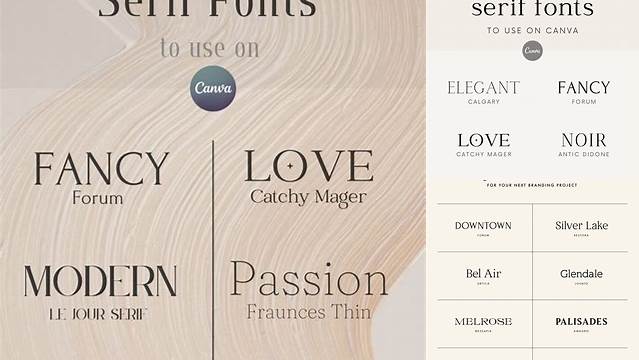
30 Free Serif Fonts You'll Love (Download Now!)
Hey guys! Looking to add a touch of elegance and readability to your designs? You've come to the right place! Serif fonts are the classic choice for a reason – their little decorative strokes (those 'serifs'!) give them a formal, timeless feel that's perfect for everything from books and magazines to websites and branding. But finding high-quality serif free font can sometimes feel like searching for a needle in a haystack. That's why we've curated this list of 30 awesome free serif fonts that you can download and use right now!
1. What are Serif Fonts?
Let's start with the basics. What exactly are serif fonts? Well, they're characterized by those small lines or strokes attached to the ends of letters. Think Times New Roman or Georgia – those are classic examples of serif typefaces. The serifs help guide the reader's eye across the page, making them super readable, especially in long blocks of text. This is why you'll often see serif fonts used in books, newspapers, and magazines. But they're also great for adding a touch of sophistication to logos, websites, and other design projects. When you're working on a project that needs a sense of tradition, trustworthiness, or just plain elegance, a well-chosen serif font can make all the difference. Plus, with so many free options available, you don't have to break the bank to get that polished look. So, let's dive into some amazing free serif fonts you can use today!
2. Classic Serif Fonts for Professional Designs
When it comes to professional designs, you can't go wrong with classic serif fonts. These fonts are timeless, versatile, and convey a sense of authority and reliability. Think of fonts like Times New Roman or Garamond – they've been around for ages and are still widely used in books, newspapers, and corporate documents. But there are plenty of other fantastic classic serif fonts that are available for free. For example, you might want to check out Lora, a well-balanced serif with roots in calligraphy, or Playfair Display, a high-contrast serif that's perfect for headlines and titles. These fonts are ideal for projects that require a touch of formality and professionalism. Whether you're designing a business card, a resume, or a website for a law firm, a classic serif font will help you communicate credibility and competence. And the best part? Many of these fonts are available under open-source licenses, meaning you can use them for both personal and commercial projects without paying a dime. So, don't underestimate the power of a classic – it can elevate your designs and leave a lasting impression.
3. Modern Serif Fonts for a Contemporary Look
If you're aiming for a more contemporary look, modern serif fonts are the way to go. These fonts retain the readability of traditional serifs but incorporate a more streamlined and stylish aesthetic. Think clean lines, sharp angles, and a touch of personality. Modern serifs are perfect for projects that need to feel both sophisticated and fresh. For instance, a font like Libre Baskerville offers a contemporary take on the classic Baskerville, making it a great choice for websites or print materials. Another excellent option is Montserrat, which includes a serif variation that's both elegant and highly readable. Modern serif fonts are incredibly versatile – they work well for everything from logos and branding to editorial design and web typography. They strike a balance between tradition and innovation, making them ideal for businesses that want to project a forward-thinking image. And just like classic serifs, there are tons of free modern serif fonts out there. So, you can achieve a polished, contemporary design without spending a fortune. Experiment with different modern serifs to find the perfect fit for your project and watch your designs come to life!
4. Elegant Serif Fonts for Invites and Branding
For projects that demand elegance and sophistication, you'll want to explore serif fonts specifically designed for that purpose. These fonts often feature delicate serifs, graceful curves, and a refined overall appearance. They're perfect for wedding invitations, branding materials for luxury goods, and any design that needs a touch of class. Think about how a beautifully designed invitation can set the tone for an entire event – the right serif font can make all the difference. Some fantastic free elegant serifs include Mrs Eaves, a font with a unique and slightly quirky charm, and Didot, a high-contrast serif known for its use in fashion magazines. These fonts exude a sense of luxury and refinement, making them ideal for high-end brands and special occasions. When choosing an elegant serif, pay attention to the details – the shape of the serifs, the spacing between letters, and the overall balance of the font. A well-chosen elegant serif can elevate your design and create a lasting impression of quality and sophistication. Plus, the availability of free options means you can achieve that luxurious look without breaking the bank. So go ahead, indulge in a little elegance!
5. Bold Serif Fonts for Headlines
Need a font that commands attention? Bold serif fonts are your best friend for headlines and titles. These fonts are designed to be eye-catching and impactful, making them perfect for grabbing the reader's attention. A bold serif font can make a statement and add a touch of authority to your design. Think about the headlines in newspapers or magazines – they often use bold serifs to draw the reader in. Some great free bold serif options include Oswald, a sans-serif font that has a bold serif counterpart, and Roboto Slab, a modern and versatile slab serif that works well in both print and digital contexts. Bold serifs are especially useful when you need to create visual hierarchy in your design. They help to separate headings from body text and guide the reader through the information. When using a bold serif, make sure to consider the overall balance of your design. You don't want the headline to overwhelm the rest of the elements. A well-chosen bold serif, however, can be the perfect way to make your message stand out. And with so many free options available, you can experiment and find the perfect bold serif for your project.
6. Lightweight Serif Fonts for Body Text
While bold serif fonts are fantastic for headlines, lightweight serifs are the go-to choice for body text. These fonts are designed to be easy on the eyes, ensuring a comfortable reading experience, especially in longer blocks of text. The key is readability – you want a font that allows the reader to focus on the content, not the font itself. Lightweight serifs often have a delicate and understated appearance, which makes them ideal for conveying a sense of sophistication and clarity. Think about the fonts used in novels or academic papers – they're usually lightweight serifs that prioritize legibility. Some excellent free lightweight serif options include Raleway, a versatile font that comes in a range of weights, and Merriweather, a font specifically designed for on-screen reading. When choosing a lightweight serif for your body text, consider the overall tone of your design. A more classic serif can lend a sense of tradition, while a modern serif can add a contemporary touch. The right lightweight serif can make your text flow beautifully and enhance the reading experience. And with plenty of free options available, you can find the perfect font without sacrificing your budget. So, prioritize readability and choose a lightweight serif that lets your message shine.
7. Unique Serif Fonts to Stand Out
Tired of the same old serif fonts? Want something that truly stands out? Then you need to explore unique serif fonts! These fonts break the mold with unconventional shapes, unexpected details, and a whole lot of personality. They're perfect for projects that need to make a statement and leave a lasting impression. Think about how a unique font can instantly elevate a logo or a website – it's a way to express your brand's individuality and creativity. Some awesome free unique serif fonts include Arvo, a geometric slab serif with a distinctive character, and Playfair Display, a high-contrast serif with a dramatic flair. These fonts aren't afraid to be different, and they can add a touch of whimsy or sophistication to your design. When using a unique serif, be mindful of readability. You want a font that's eye-catching but still easy to read, especially in longer blocks of text. A well-chosen unique serif can be the perfect way to add some personality to your project. And with the vast array of free options available, you can find a font that truly reflects your style and vision. So, don't be afraid to experiment and embrace the unexpected!
8. Free Serif Fonts for Logos
A logo is the cornerstone of a brand's identity, and the font you choose plays a crucial role in conveying the brand's personality and values. Serif fonts can be an excellent choice for logos, especially if you want to project a sense of tradition, elegance, or authority. But with so many fonts out there, how do you choose the right one for your logo? First, consider your brand's message. Do you want to convey a sense of sophistication, reliability, or innovation? A classic serif like Garamond might be perfect for a high-end brand, while a modern serif like Playfair Display could work well for a contemporary business. Free serif fonts offer a fantastic opportunity to create a professional-looking logo without breaking the bank. Look for fonts that are legible at various sizes and have a strong visual presence. Some great free options for logos include Lora, a well-balanced serif with a classic feel, and Oswald, a bold serif that commands attention. Remember, your logo is often the first impression a potential customer has of your brand, so choosing the right font is essential. Experiment with different free serif fonts and see which ones best capture the essence of your brand.
9. Best Free Serif Fonts for Websites
When it comes to website typography, readability is key. You want your visitors to be able to easily read your content, whether they're on a desktop computer or a mobile device. Serif fonts can be an excellent choice for websites, but it's important to choose fonts that are optimized for on-screen reading. This means looking for fonts with clear, well-defined characters and ample spacing. Free serif fonts offer a wealth of options for creating beautiful and readable websites. Some top choices for web typography include Roboto Slab, a modern and versatile slab serif, and Merriweather, a font specifically designed for on-screen reading. These fonts are designed to look good at various sizes and resolutions, ensuring a consistent user experience across different devices. When selecting a serif font for your website, consider the overall design and branding. Do you want a font that feels classic and traditional, or something more modern and contemporary? The right font can enhance your website's aesthetic and improve its readability. So, explore the world of free serif fonts and find the perfect typeface to bring your website to life.
10. Top Free Serif Fonts for Print
While many fonts look great on screens, not all of them translate well to print. When designing for print, you need to choose serif fonts that are crisp, clear, and legible even at small sizes. This is where classic serif fonts often shine, as they were originally designed for the printed page. Free serif fonts offer a treasure trove of options for print design, from books and magazines to brochures and flyers. Some standout choices for print include Garamond, a timeless and elegant serif, and Times New Roman, a workhorse font that's known for its readability. These fonts have been used in countless printed materials over the years, and they continue to be excellent choices for a reason. When selecting a serif font for print, pay attention to the details. Look for fonts with well-defined serifs and a balanced letterform. The right font can make your printed materials look professional and polished. So, dive into the world of free serif fonts and discover the perfect typeface for your next print project.
11. Serif vs. Sans-Serif: Which is Right for You?
The age-old debate: serif fonts vs. sans-serif fonts. Which one is the right choice for your project? The answer, of course, depends on the specific context and your design goals. Serif fonts, with their small decorative strokes, tend to convey a sense of tradition, elegance, and authority. They're often used in books, newspapers, and formal documents. Sans-serif fonts, on the other hand, have a cleaner, more modern appearance. They're frequently used in websites, logos, and contemporary designs. But the lines between the two are blurring, and there's no hard-and-fast rule about when to use each type of font. For instance, a modern serif font can work beautifully in a website headline, while a clean sans-serif can be a great choice for body text in a printed brochure. Ultimately, the best way to decide between serif and sans-serif is to experiment and see what looks best for your project. Consider the overall tone and message you want to convey, and choose a font that aligns with your vision. And remember, there are tons of free serif and sans-serif fonts available, so you have plenty of options to choose from!
12. How to Pair Serif Fonts with Other Fonts
Choosing a serif font is just the first step. To create a truly compelling design, you need to think about how to pair your serif font with other fonts. Font pairing is an art form, but there are some basic principles you can follow to achieve a harmonious look. One common strategy is to pair a serif font with a sans-serif font. This creates visual contrast and helps to separate different elements of your design. For example, you might use a bold serif font for headlines and a clean sans-serif font for body text. Another approach is to pair different styles of serif fonts. You could combine a classic serif with a modern serif, or a bold serif with a lightweight serif. The key is to find fonts that complement each other without clashing. Free serif fonts offer a fantastic opportunity to experiment with font pairing and discover unique combinations. Use online tools and resources to find inspiration and see how different fonts look together. With a little practice, you can master the art of font pairing and create designs that are both visually appealing and highly readable.
13. Where to Find More Free Serif Fonts
Okay, so you're loving these serif fonts, and you're hungry for more? Great! The internet is a treasure trove of free fonts, but it can be overwhelming to sift through all the options. So, where do you start your search? There are several fantastic websites that offer high-quality free serif fonts, including Google Fonts, Font Squirrel, and DaFont. These sites have extensive libraries of fonts, and they make it easy to filter and search for the perfect typeface. Google Fonts is particularly useful because it offers a wide range of open-source fonts that are optimized for web use. Font Squirrel is another great resource, with a curated collection of free fonts that are suitable for commercial projects. DaFont is a bit more eclectic, with a vast selection of fonts created by independent designers. When browsing for free serif fonts, pay attention to the licensing terms. Some fonts are free for personal use only, while others can be used for commercial projects. Always double-check the license before using a font in your work. With a little searching, you can build up a fantastic collection of free serif fonts and have plenty of options for your next design project.
14. Understanding Serif Font Licensing
Speaking of licensing, it's super important to understand the terms of use for serif fonts, especially if you're using them for commercial projects. Just because a font is free to download doesn't mean you can use it in any way you want. Font licenses dictate how you can use a font, including whether you can use it for commercial purposes, modify it, or embed it in a website or document. There are several types of font licenses, ranging from open-source licenses like the SIL Open Font License (OFL) to more restrictive commercial licenses. The OFL is a popular choice for free fonts because it allows you to use the font for any purpose, including commercial projects, and to modify and redistribute the font. However, it's always essential to read the specific license agreement that comes with each font. Some free fonts may have restrictions on their use, such as requiring attribution or prohibiting modification. If you're unsure about the licensing terms, it's always best to err on the side of caution and contact the font designer or distributor for clarification. Understanding font licensing can help you avoid legal issues and ensure that you're using free serif fonts responsibly.
15. Serif Fonts for Different Design Styles
Serif fonts are incredibly versatile and can be used in a wide range of design styles. Whether you're creating a classic and elegant design or a modern and edgy one, there's a serif font that can fit the bill. In traditional designs, serif fonts like Garamond or Times New Roman can convey a sense of history and authority. In modern designs, contemporary serifs like Playfair Display or Lora can add a touch of sophistication. Serif fonts can also be used effectively in minimalist designs, where their subtle details can add visual interest without overwhelming the overall aesthetic. For more playful or whimsical designs, unique serif fonts with unconventional shapes can be a great choice. The key is to consider the overall style and message of your design and choose a serif font that complements it. Experiment with different styles of serif fonts and see how they can transform the look and feel of your work. From classic to modern, elegant to playful, serif fonts offer a wealth of possibilities for expressing your creative vision.
16. The Psychology of Serif Fonts
Did you know that serif fonts can actually influence how people perceive your message? That's the power of typography! Different fonts evoke different emotions and associations, and serif fonts are no exception. In general, serif fonts tend to convey a sense of tradition, authority, and trustworthiness. This is why they're often used in formal documents, legal materials, and the branding of established institutions. The serifs themselves – those little strokes at the ends of the letters – add a touch of formality and refinement. When you use a serif font, you're subconsciously signaling to your audience that you're serious and professional. However, the specific effect of a serif font can also depend on its style. A classic serif like Times New Roman might evoke a sense of history and tradition, while a modern serif like Playfair Display might feel more elegant and sophisticated. Understanding the psychology of serif fonts can help you make informed choices about typography and create designs that resonate with your target audience. So, next time you're choosing a font, consider the message you want to send and the emotions you want to evoke.
17. Using Free Serif Fonts in Branding
A strong brand identity relies on consistent visuals, and the font you choose is a key part of that. Serif fonts can be a powerful tool for branding, especially if you want to convey a sense of tradition, reliability, or sophistication. Think about the logos of some well-known brands – many of them use serif fonts to project a sense of authority and trustworthiness. But choosing the right serif font for your branding is crucial. You need a font that not only looks good but also reflects your brand's personality and values. A classic serif might be perfect for a law firm or financial institution, while a modern serif could be a better fit for a fashion brand or design agency. Free serif fonts offer a fantastic opportunity to experiment with different styles and find the perfect typeface for your brand. Consider how the font will look in your logo, on your website, and in your marketing materials. It should be legible at various sizes and work well in both print and digital contexts. The right serif font can elevate your brand and help you create a lasting impression. So, explore the world of free serif fonts and discover the perfect typeface to tell your brand's story.
18. Serif Fonts for Resumes and Cover Letters
When it comes to job applications, first impressions matter. Your resume and cover letter are your chance to make a strong impression on potential employers, and the font you choose can play a significant role. Serif fonts are often a great choice for these documents because they convey a sense of professionalism and readability. A well-chosen serif font can make your resume look polished and credible. Classic serifs like Times New Roman and Garamond are traditional choices for resumes, but you can also explore modern serifs like Lora or Merriweather for a more contemporary look. The key is to choose a font that is easy to read and doesn't distract from the content. Avoid overly decorative or unusual fonts, as they can make your resume look unprofessional. Free serif fonts offer a wealth of options for creating professional-looking resumes and cover letters. Experiment with different fonts and see which ones best suit your style and the industry you're targeting. A polished and readable resume can help you stand out from the competition and land your dream job. So, pay attention to your typography and choose a serif font that puts your best foot forward.
19. Combining Serif Fonts with Images
Typography and imagery go hand in design. The way you combine serif fonts with images can have a significant impact on the overall look and feel of your project. When pairing serif fonts with images, it's important to consider the tone and style of both elements. For example, a classic serif font can create a sense of elegance and sophistication when paired with a high-quality photograph, while a modern serif can add a contemporary touch to a bold illustration. The key is to find a balance between the typography and the imagery. You don't want one element to overpower the other. Consider the color palette, the composition, and the overall message of your design. Free serif fonts offer a fantastic opportunity to experiment with different combinations and see what works best for your project. Try layering text over images, using fonts as graphic elements, or creating visual contrast between typography and imagery. A well-executed combination of serif fonts and images can elevate your design and create a lasting impression. So, explore the creative possibilities and discover the magic of combining type and visuals.
20. The Future of Serif Fonts in Design
Serif fonts have a long and rich history, but what does the future hold for these classic typefaces? While sans-serif fonts have gained popularity in recent years, serif fonts are far from fading away. In fact, they're experiencing a resurgence in many areas of design. With the rise of digital media, designers are rediscovering the elegance and readability of serif fonts for websites, apps, and other digital platforms. Modern serif fonts are becoming increasingly popular, offering a fresh and contemporary take on the traditional typeface. We're also seeing more experimentation with unique and unconventional serif fonts, pushing the boundaries of typography and creating exciting new possibilities. Free serif fonts will continue to play a crucial role in this evolution, providing designers with access to a wide range of high-quality typefaces. As technology evolves and design trends shift, serif fonts will adapt and continue to be an essential tool for visual communication. So, embrace the timeless appeal of serif fonts and explore the exciting possibilities they offer for the future of design.
21. Serif Fonts and Accessibility
When choosing fonts for any project, accessibility should be a top priority. This means selecting typefaces that are easy to read for people with visual impairments or other disabilities. Serif fonts can be a good choice for accessibility, but it's important to select the right ones. Fonts with clear, well-defined characters and ample spacing are generally more readable. Avoid overly decorative or condensed fonts, as they can be difficult to decipher. The size of the font also plays a crucial role in accessibility. Use a font size that is large enough to be easily read, especially on screens. Web accessibility guidelines recommend a minimum font size of 16 pixels for body text. You should also consider the contrast between the text and the background. High contrast makes text easier to read for people with low vision. Free serif fonts offer a range of options for creating accessible designs. Look for fonts that have been specifically designed for readability, such as those with open counters and consistent stroke widths. By choosing the right serif font and paying attention to accessibility guidelines, you can create designs that are inclusive and user-friendly.
22. How to Create Your Own Serif Font
Ever dreamed of creating your own serif font? It's a challenging but rewarding process that allows you to express your creativity and design a typeface that is truly unique. Creating a font involves drawing each letter, number, and symbol individually, paying attention to the details of the serifs, the spacing, and the overall balance. There are several software programs available for font design, ranging from free open-source tools to professional-grade applications. FontForge is a popular free option that offers a wide range of features for creating and editing fonts. Glyphs and RoboFont are two professional programs that are widely used in the industry. Before you start designing, it's helpful to study existing serif fonts and understand the anatomy of a typeface. Pay attention to the different styles of serifs, the proportions of the letters, and the overall rhythm of the font. Creating a font is a time-consuming process, but the result can be a beautiful and functional typeface that you can use in your own designs or even share with others. So, if you're feeling creative and ambitious, why not try your hand at designing your own serif font?
23. Serif Fonts for Social Media Graphics
Social media is a visually driven world, and the fonts you use in your graphics can have a big impact on engagement. Serif fonts can be a great choice for social media graphics, especially if you want to convey a sense of elegance, authority, or readability. But it's important to choose fonts that are optimized for the small screens and fast-paced environment of social media. Bold serif fonts can be particularly effective for headlines and titles, as they grab attention and make your message stand out. For body text, choose a serif font that is clear and legible, even at small sizes. Consider the overall tone and style of your brand when selecting a font. A classic serif might be perfect for a more formal or traditional brand, while a modern serif could be a better fit for a contemporary or creative brand. Free serif fonts offer a wealth of options for creating eye-catching social media graphics. Experiment with different fonts and see which ones resonate with your audience. Remember, consistency is key in branding, so choose a font that you can use consistently across all your social media platforms. The right serif font can help you create a strong visual identity and connect with your followers.
24. The History of Serif Fonts
Serif fonts have a long and fascinating history, dating back to the early days of printing. The serifs themselves are believed to have originated from the practice of Roman stonemasons, who added small finishing strokes to the ends of letters carved in stone. These serifs not only added a decorative touch but also helped to improve the readability of the letters. As printing technology evolved, serif fonts became the standard for books, newspapers, and other printed materials. Early serif fonts like Garamond and Caslon were designed for readability and elegance, and they remain popular choices today. Over the centuries, serif fonts have evolved in various styles, from the classic old-style serifs to the modern transitional and Didone serifs. Each style has its own unique characteristics and aesthetic. The history of serif fonts is a testament to their enduring appeal and versatility. These typefaces have stood the test of time and continue to be an essential part of the designer's toolkit. Understanding the history of serif fonts can help you appreciate their beauty and make informed choices about typography.
25. Serif Fonts and Emotional Impact
Typography isn't just about legibility; it's also about emotion. The serif fonts you choose can significantly impact how your message is perceived and felt. Classic serifs often evoke feelings of tradition, trust, and stability. They're like the reliable friend you can always count on. On the other hand, modern serifs can convey sophistication, elegance, and a touch of contemporary flair. They're the stylish trendsetters of the font world. Think about how different fonts make you feel when you see them. A bold serif might scream authority and confidence, while a delicate serif whispers grace and refinement. Understanding these emotional nuances can help you craft messages that truly resonate with your audience. Consider your brand's personality and the emotions you want to evoke. Do you want to project a sense of history and trustworthiness? Or a cutting-edge, modern vibe? Your font choice can be a powerful tool for communicating these subtle cues.
26. Common Mistakes When Using Serif Fonts
Serif fonts are fantastic, but like any design tool, they can be misused. One common mistake is using too many different fonts in a single design. This can create a cluttered and confusing look. Stick to a maximum of two or three fonts, and make sure they complement each other. Another pitfall is choosing a serif font that's too ornate or difficult to read. Legibility is crucial, especially for body text. Save those fancy, decorative serifs for headlines or smaller elements. Poor font pairing is another frequent mistake. Pairing a serif with a sans-serif can be a great way to create contrast, but make sure the fonts have a similar mood and weight. Avoid clashing styles that fight for attention. Also, be mindful of font size and spacing. Text that's too small or too tightly spaced can be difficult to read. Give your words room to breathe. By avoiding these common mistakes, you can harness the power of serif fonts and create designs that are both beautiful and effective.
27. Best Free Serif Fonts for eBooks
Writing an eBook? The font you choose is crucial for readability and reader engagement. Serif fonts are often the preferred choice for eBooks due to their traditional readability. But with so many options, how do you choose the perfect free serif font for your digital masterpiece? Think about the reading experience. You want a font that's easy on the eyes, even on smaller screens. Avoid overly decorative fonts that can become distracting. Instead, look for classic serifs designed for long-form reading. Some excellent free options include Lora, a well-balanced serif with a contemporary feel, and Merriweather, specifically designed for on-screen readability. These fonts have clear, distinct characters and generous spacing, making them ideal for eBooks. Consider the genre of your book too. A more formal serif might suit a non-fiction title, while a slightly more whimsical serif could work well for fiction. Test your chosen font on different devices and screen sizes to ensure readability. A well-chosen serif font can enhance the reading experience and keep your audience hooked from start to finish.
28. Serif Fonts in Web Design Trends
Web design trends come and go, but serif fonts have shown remarkable staying power. While sans-serif fonts dominated the web for years, serifs are making a strong comeback, adding a touch of elegance and sophistication to websites. One trend is using serif fonts for headlines and headings, creating a bold contrast with sans-serif body text. This visual hierarchy helps guide the user's eye and makes the content more engaging. Another trend is incorporating serif fonts in minimalist web designs, where their subtle details can add visual interest without cluttering the layout. We're also seeing a rise in unique and unconventional serifs, adding personality and character to websites. But readability remains key. When using serif fonts on the web, it's crucial to choose fonts optimized for on-screen display. Consider font size, line height, and contrast to ensure a comfortable reading experience. Free serif fonts offer a fantastic way to experiment with these trends without breaking the bank. By staying on top of web design trends, you can use serif fonts to create websites that are both beautiful and functional.
29. Free Serif Fonts for Commercial Use
Working on a project with a budget? Finding serif fonts that are free for commercial use is essential. Luckily, there are tons of high-quality options available that won't cost you a dime. But navigating font licensing can be tricky. Always double-check the license agreement before using any font in a commercial project. Look for licenses like the SIL Open Font License (OFL), which allows you to use the font for any purpose, including commercial work, without attribution. Google Fonts is a fantastic resource for free, open-source fonts that are perfect for commercial projects. Font Squirrel also offers a curated selection of free fonts with commercial licenses. When searching for free serif fonts, consider your project's needs. Do you need a classic serif for a formal design? Or a modern serif for a contemporary look? There are free options for every style. By taking the time to understand font licensing and exploring the available resources, you can build a collection of free serif fonts that are ready for any commercial project.
30. Maintaining Serif Font Consistency in Your Designs
Consistency is key in design, and that includes your font choices. Using serif fonts consistently across all your materials creates a unified and professional brand identity. Choose a limited number of serif fonts (ideally no more than two or three) and stick to them. Use one font for headlines and another for body text, and maintain this hierarchy throughout your designs. Consider the different weights and styles within a font family. A bold weight can add emphasis, while a lighter weight can create a sense of airiness. But avoid mixing too many weights, as this can create a cluttered look. Pay attention to font size and spacing. Use consistent font sizes for headings and body text, and ensure adequate spacing between lines and letters for readability. For websites, use CSS to define your font styles and ensure consistency across all pages. By maintaining serif font consistency, you'll create designs that are polished, professional, and true to your brand's identity.